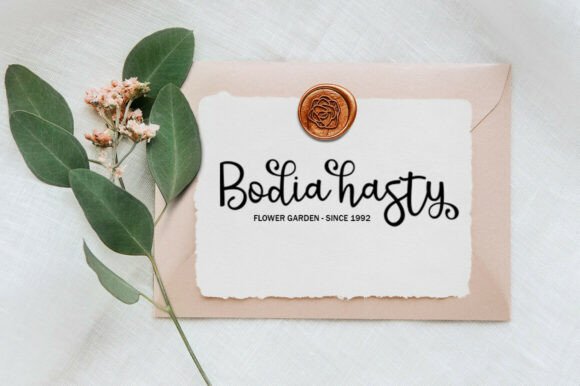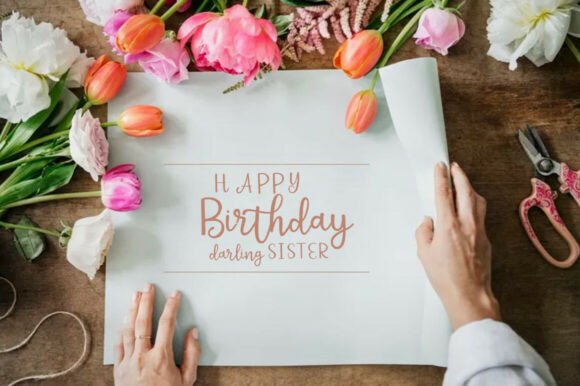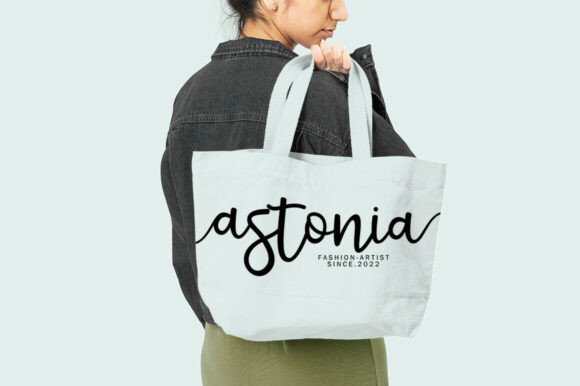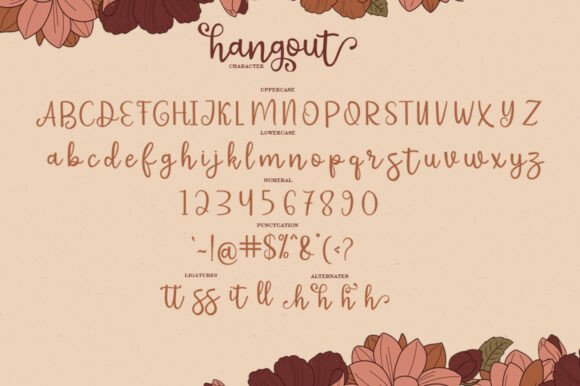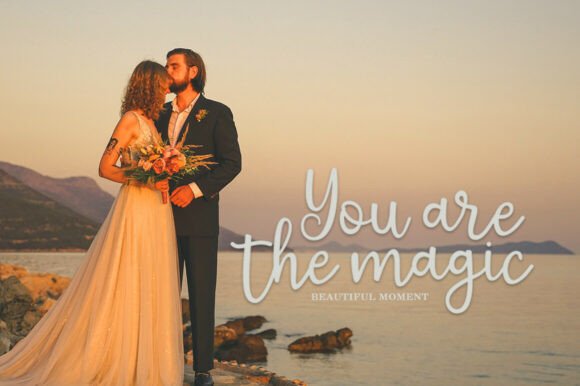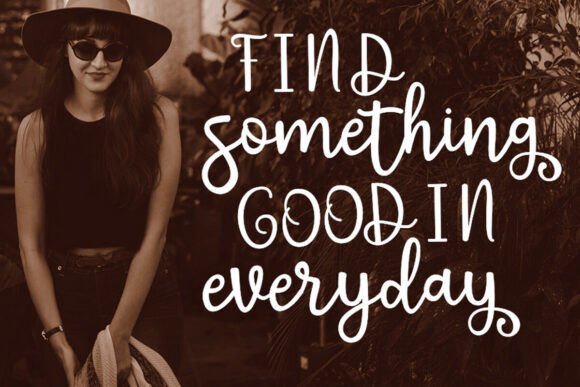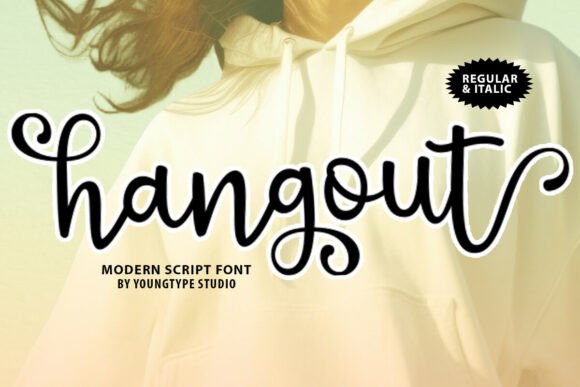
Introducing Hangout Font: The Perfect Blend of Casual and Playful
In the world of typography, fonts play a crucial role in conveying the tone and personality of a design. If you’re looking for a font that exudes a casual, friendly, and playful vibe, look no further than Hangout Font. Created by Youngtype Studio, Hangout is a modern script font designed to bring a touch of whimsy and approachability to your creative projects.
Hangout Font boasts smooth, hand-drawn letterforms with bold, rounded strokes and expressive curves. The font’s standout elements are the decorative swashes on letters like “h” and “t”, which add an energetic and whimsical flair to the overall appearance. The bold outline and clear legibility of Hangout make it perfect for a variety of design applications, from branding and social media posts to product packaging and greeting cards.
• Smooth, hand-drawn letterforms: Hangout’s letterforms are crafted to resemble handwriting, giving your designs a personal and approachable feel.
• Bold, rounded strokes: The font’s bold strokes add a touch of playfulness and energy to your designs.
• Expressive curves: Hangout’s curves are designed to convey a sense of friendliness and approachability.
• Decorative swashes: The decorative swashes on letters like “h” and “t” add a whimsical touch to your designs.
• Available in two styles: Hangout is available in both Regular and Italic styles, offering flexibility for different design needs while maintaining a consistent aesthetic.
Hangout Font is versatile and can be used for a wide range of creative projects, including:
• Branding: Use Hangout to create a friendly and approachable brand identity that resonates with your audience.
• Social media posts: Add a touch of personality to your social media posts with Hangout’s playful and energetic vibe.
• Product packaging: Hangout is perfect for product packaging that requires a friendly and approachable tone.
• Quotes and typography: Use Hangout to create inspiring quotes and typography that convey a sense of positivity and energy.
• T-shirt designs: Hangout is a great choice for t-shirt designs that require a playful and casual font.
• Greeting cards: Add a personal touch to your greeting cards with Hangout’s friendly and approachable font.
Print and Digital Use
Hangout Font is designed to be versatile and can be used for both print and digital applications. The font’s bold outline and clear legibility make it perfect for:
• Print materials: Use Hangout for print materials like brochures, flyers, and posters.
• Digital applications: Hangout is also suitable for digital applications like website headers, social media graphics, and email marketing campaigns.
In conclusion, Hangout Font is a modern script font that brings a casual, friendly, and playful feel to your designs. With its smooth, hand-drawn letterforms, bold strokes, and expressive curves, Hangout is perfect for a wide range of creative projects. Whether you’re a designer, crafter, or DIY enthusiast, Hangout is a great choice for adding a personal touch to your designs. Try Hangout Font today and bring a touch of whimsy and approachability to your creative projects!